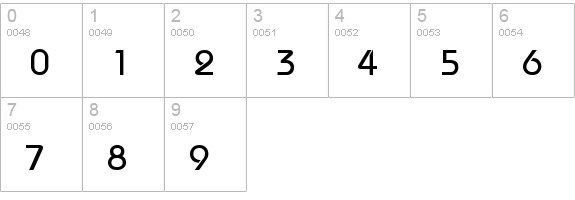
Bauhaus-Thin Font Details
Bauhaus-Thin is a delicate, low-contrast variant in the Bauhaus typeface family \xE2\x80\x94 well suited to fashion editorial, minimal branding, and high-contrast display.
Bauhaus-Thin font is a sleek and modern typeface that exudes sophistication and elegance. With its clean lines and minimalist design, this font is perfect for adding a touch of refinement to any project. The thin weight of the font gives it a delicate and airy appearance, making it ideal for use in headings, logos, and other design elements where a subtle touch is needed. What's even better is that Bauhaus-Thin font is available for free download at FontsMarket.com. This means you can easily access this stylish typeface and incorporate it into your designs without any cost. Don't miss out on the opportunity to enhance your projects with this beautiful font – download Bauhaus-Thin today and elevate your design game!